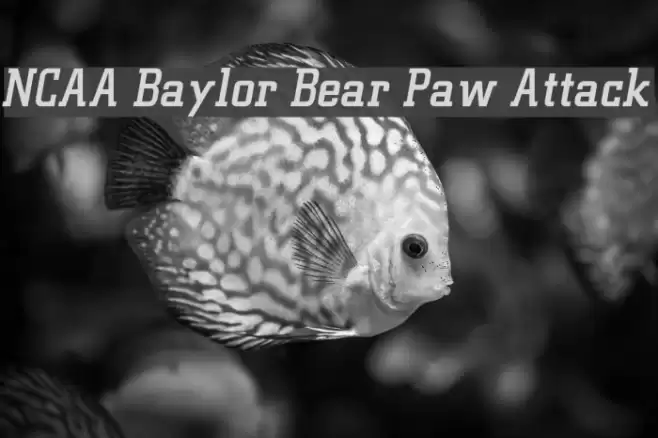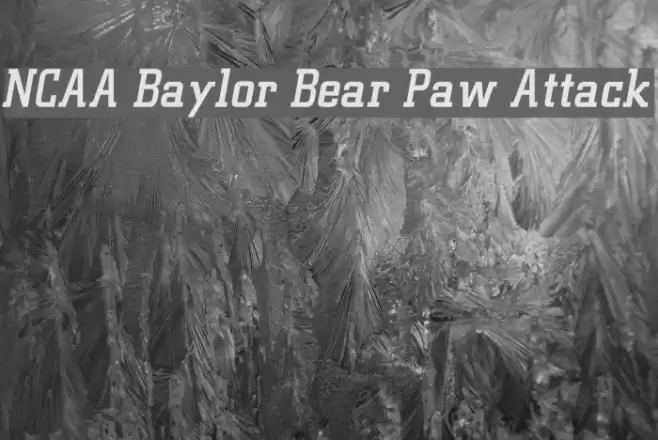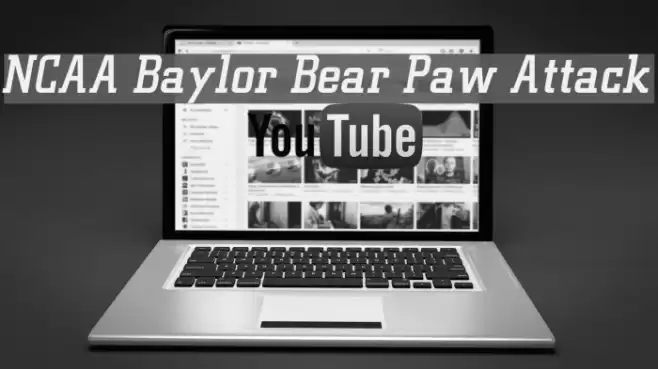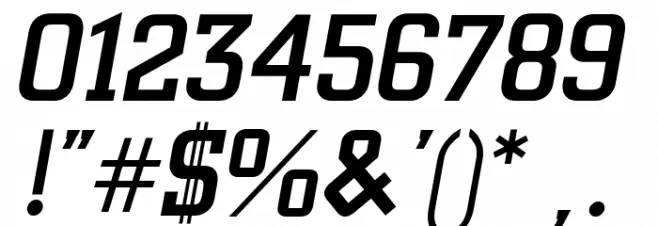
NCAA Baylor Bear Paw Attack Font
NCAA Baylor Bear Paw Attack Description
This font features a bold and dynamic style with a strong slant, giving it an italicized appearance. The characters are well-defined with a consistent stroke width, creating a uniform look across both uppercase and lowercase letters. The numerals and special characters maintain the same energetic slant, enhancing the font's cohesive design. The overall aesthetic is modern and sporty, making it ideal for projects that require a sense of movement and energy. The spacing between characters is tight, which contributes to its compact and impactful presence.
A bold, slanted font with a modern, sporty aesthetic from Uncategorized fonts.
- Proposed Projects: Ideal for sports branding, team logos, dynamic posters, and energetic headlines.
- Character Spacing: Tight